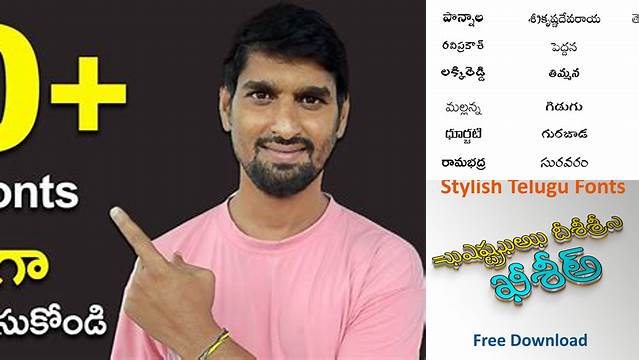
Telugu Fonts For MS Word: Free Download Guide
Hey guys! Are you looking to spice up your documents with some beautiful Telugu fonts in MS Word? You've come to the right place! This guide will walk you through everything you need to know about finding and downloading Telugu fonts for free, making your work look professional and culturally rich. Let's dive in!
1. Why Use Telugu Fonts in MS Word?
Using Telugu fonts in MS Word can significantly enhance the visual appeal and readability of your documents. Whether you're creating a formal report, a creative project, or personal correspondence, choosing the right font can make all the difference. Telugu fonts, in particular, bring a touch of authenticity and cultural richness to your text, making it more engaging for readers who understand the language. Moreover, using the correct font ensures that your text is displayed accurately, avoiding common issues like distorted characters or incorrect glyph rendering. This is crucial for maintaining the integrity of your message and ensuring that your document looks polished and professional. The impact of a well-chosen font goes beyond mere aesthetics; it reflects attention to detail and respect for the language and culture it represents. So, if you're aiming to create documents that stand out and resonate with your audience, investing in quality Telugu fonts is a step in the right direction.
2. Understanding Telugu Font Types
Before you jump into the world of Telugu font free downloads, it's essential to understand the different types of fonts available. There are mainly two categories: Unicode fonts and non-Unicode fonts. Unicode fonts are the modern standard, designed to support a wide range of characters and languages, including Telugu. These fonts ensure compatibility across different systems and software, making them ideal for professional use. Non-Unicode fonts, on the other hand, are older and may not be as universally supported. While you might find some interesting designs among them, they often come with compatibility issues and might not display correctly on all devices. Therefore, it's generally recommended to stick with Unicode fonts for your Telugu text. Within the Unicode category, you'll find various styles, from traditional calligraphic designs to modern, clean fonts. Understanding these nuances will help you choose the perfect font for your specific needs, whether you're working on a formal document, a creative project, or anything in between. Knowing the difference between these font types will save you a lot of headaches down the road.
7. Common Issues and Troubleshooting
Even with the best intentions, sometimes you might run into issues when dealing with Telugu fonts in MS Word. One common problem is that the font doesn't appear in the font list after installation. If this happens, try restarting MS Word or even your computer. Sometimes, a simple restart can refresh the font cache and make the new font visible. Another issue can be garbled or incorrectly displayed characters. This often occurs if you're using a non-Unicode font or if there's a compatibility issue between the font and your system. Make sure you're using a Unicode font for Telugu and that your system supports Unicode encoding. If you're copying and pasting text from another source, ensure that the source also uses a compatible encoding. If you're still having trouble, try clearing your font cache. On Windows, this involves deleting temporary font files in the Windowsonts folder. On macOS, you can use Font Book to resolve font conflicts and clear the cache. Finally, if all else fails, try reinstalling the font. This can often fix corrupted font files or installation errors. By addressing these common issues, you can ensure a smooth experience when using Telugu fonts in MS Word.
8. Telugu Font Styles and Their Uses
Exploring the variety of Telugu font styles can greatly enhance your document's visual appeal and readability. Telugu fonts come in various styles, each suited for different purposes. Traditional fonts, often inspired by calligraphy, are excellent for formal documents, invitations, and artistic projects. These fonts typically have intricate designs and a classic feel. Modern fonts, on the other hand, tend to be cleaner and more minimalist, making them ideal for professional reports, presentations, and web content. They prioritize readability and clarity, ensuring that your text is easy to read on screen and in print. Display fonts are designed to grab attention and are often used for headings, titles, and posters. These fonts can be more decorative and stylized, adding a touch of flair to your document. When choosing a Telugu font style, consider the tone and purpose of your document. A formal document might benefit from a traditional font, while a modern report might look better with a clean, sans-serif font. Experiment with different styles to find the perfect match for your needs. Remember, the right font can make a significant difference in how your message is received.
9. Free vs. Paid Telugu Fonts
When it comes to Telugu fonts, you'll find both free and paid options available. Free fonts are a great starting point, especially if you're on a budget or just experimenting with different styles. Many excellent free Telugu fonts are available, particularly from sources like Google Fonts and Font Squirrel. These fonts are often open-source and licensed for both personal and commercial use, making them a safe and cost-effective choice. However, paid fonts often offer a higher level of quality, more unique designs, and broader character sets. They may also include additional features like multiple weights and styles, making them more versatile for professional use. If you're working on a critical project or need a specific look, investing in a paid font might be worth the cost. Paid fonts also come with better support, ensuring that you can get help if you encounter any issues. The decision between free and paid fonts ultimately depends on your budget, project requirements, and aesthetic preferences. Weigh the pros and cons of each option to make the best choice for your needs.